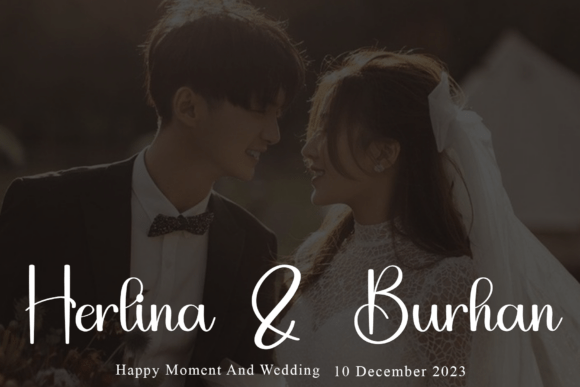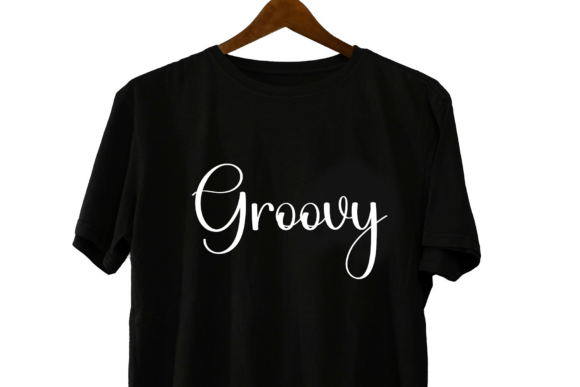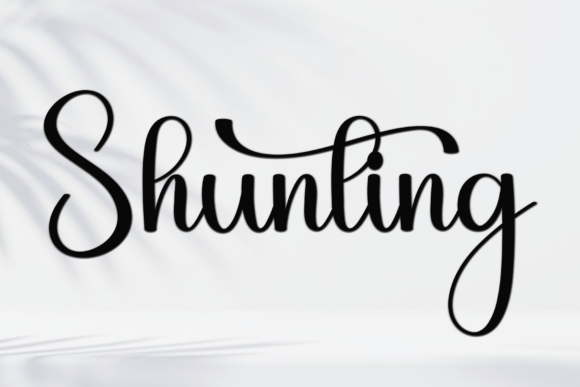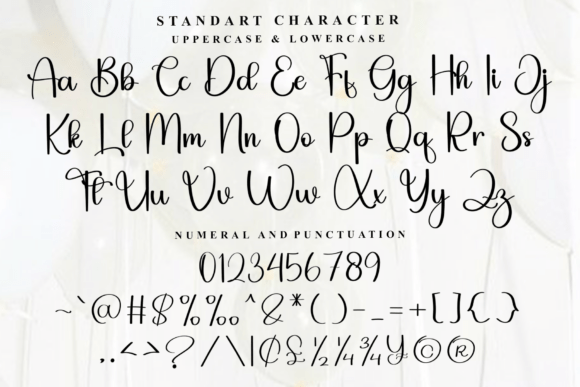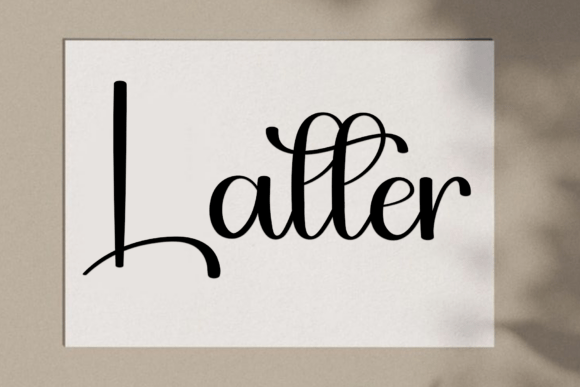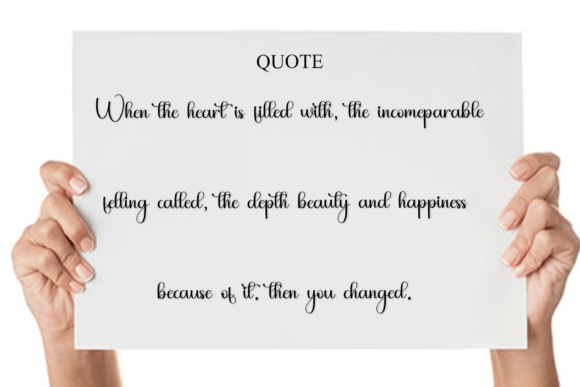
Discover the Charm of Beautiful Farmhouse Font: Elevate Your Designs with a Touch of Elegance
Are you a designer, crafter, or creative enthusiast looking for a font that can add a touch of elegance and uniqueness to your projects? Look no further than the Beautiful Farmhouse Font. This stunning font is designed with a soft, distinctive touch that sets it apart from other fonts, making it perfect for a wide range of design applications.
The Unique Characteristics of Beautiful Farmhouse Font
The Beautiful Farmhouse Font boasts a range of distinctive features that make it a standout choice for designers and crafters. Its soft, unique touch gives it a special character that is both meaningful and versatile. The font’s strokes are carefully crafted to create a natural, effortless look that is reminiscent of traditional farmhouse styles.
One of the key benefits of the Beautiful Farmhouse Font is its versatility. With a wide range of characters, this font is perfect for use in various design projects, crafts, and other creative works. Whether you’re designing a logo, creating a handmade card, or crafting a beautiful piece of art, this font is sure to enhance your designs and make them appealing to a wide range of audiences.
The font’s versatility extends to its use in various products, from digital designs and print materials to handmade crafts and DIY projects. Whether you’re creating a beautiful piece of art, designing a website, or crafting a handmade card, the Beautiful Farmhouse Font is the perfect choice.
Applications for Designers and Crafters
The Beautiful Farmhouse Font is perfect for a wide range of design applications, including:
- Logo design: Create a unique and memorable logo for your business or brand with this stunning font.
- Print materials: Use the Beautiful Farmhouse Font in your brochures, flyers, and other print materials to add a touch of elegance and sophistication.
- Digital designs: Enhance your website, social media graphics, and other digital designs with this beautiful font.
- Crafting and DIY projects: Add a personal touch to your handmade cards, scrapbooking, and other crafting projects with the Beautiful Farmhouse Font.
Why Choose the Beautiful Farmhouse Font?
There are many reasons why designers and crafters choose the Beautiful Farmhouse Font for their projects. Here are just a few:
- Unique and eye-catching design: The Beautiful Farmhouse Font is designed to stand out from other fonts, making it perfect for designers and crafters who want to create unique and memorable designs.
- Versatility: This font is perfect for use in a wide range of design applications, from digital designs to handmade crafts.
The Beautiful Farmhouse Font is a stunning and versatile font that is perfect for designers, crafters, and creative enthusiasts. With its unique and eye-catching design, versatility, and compatibility with various applications, this font is sure to enhance your designs and make them appealing to a wide range of audiences.